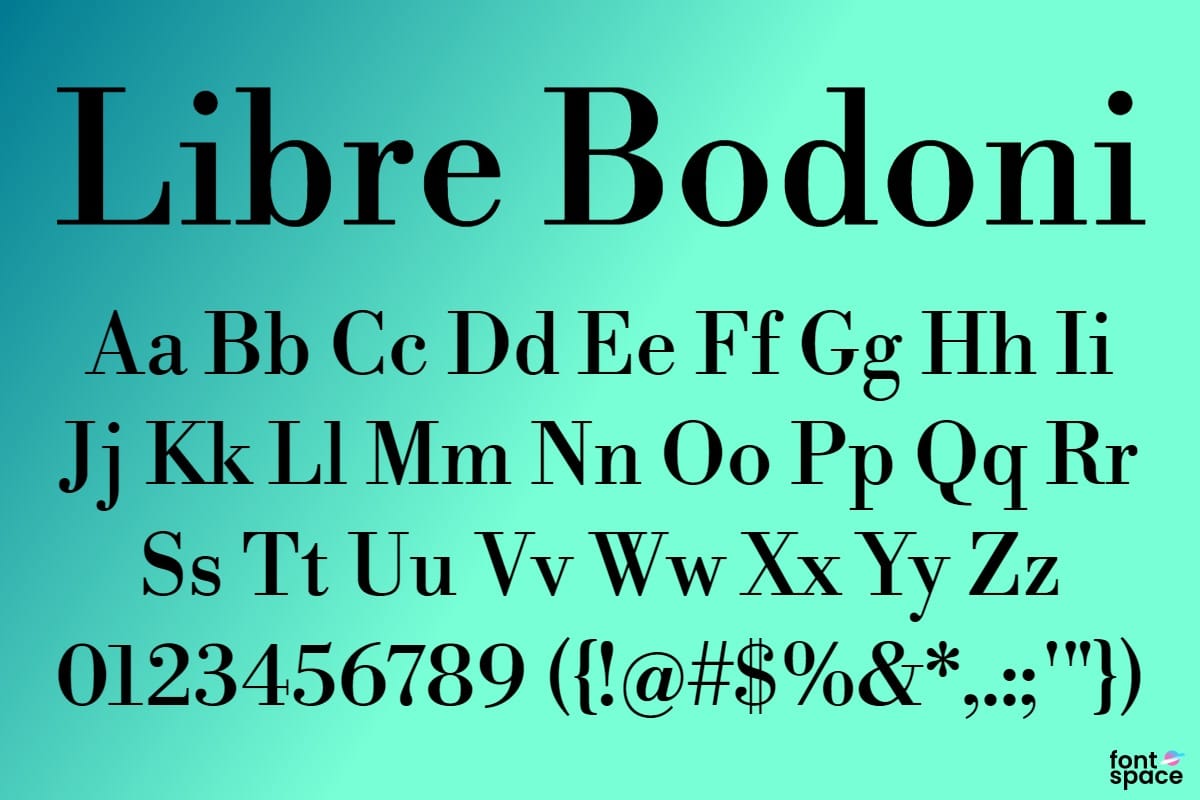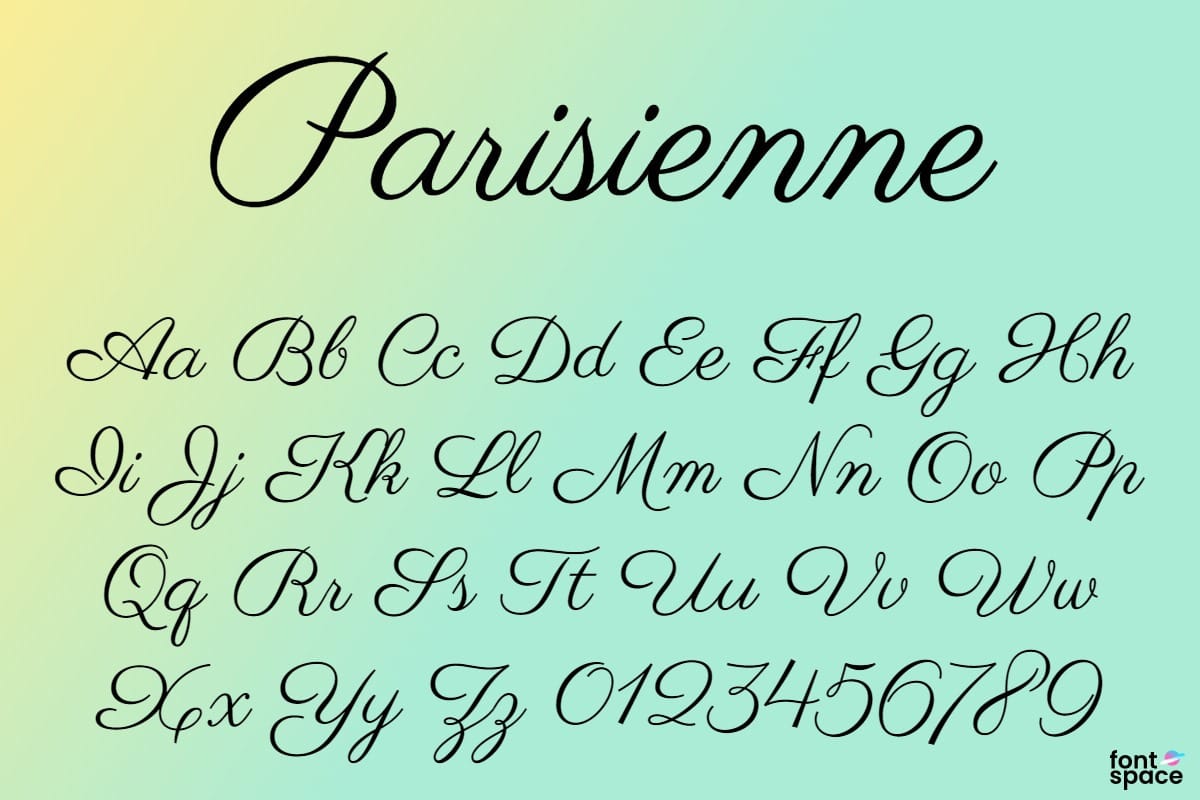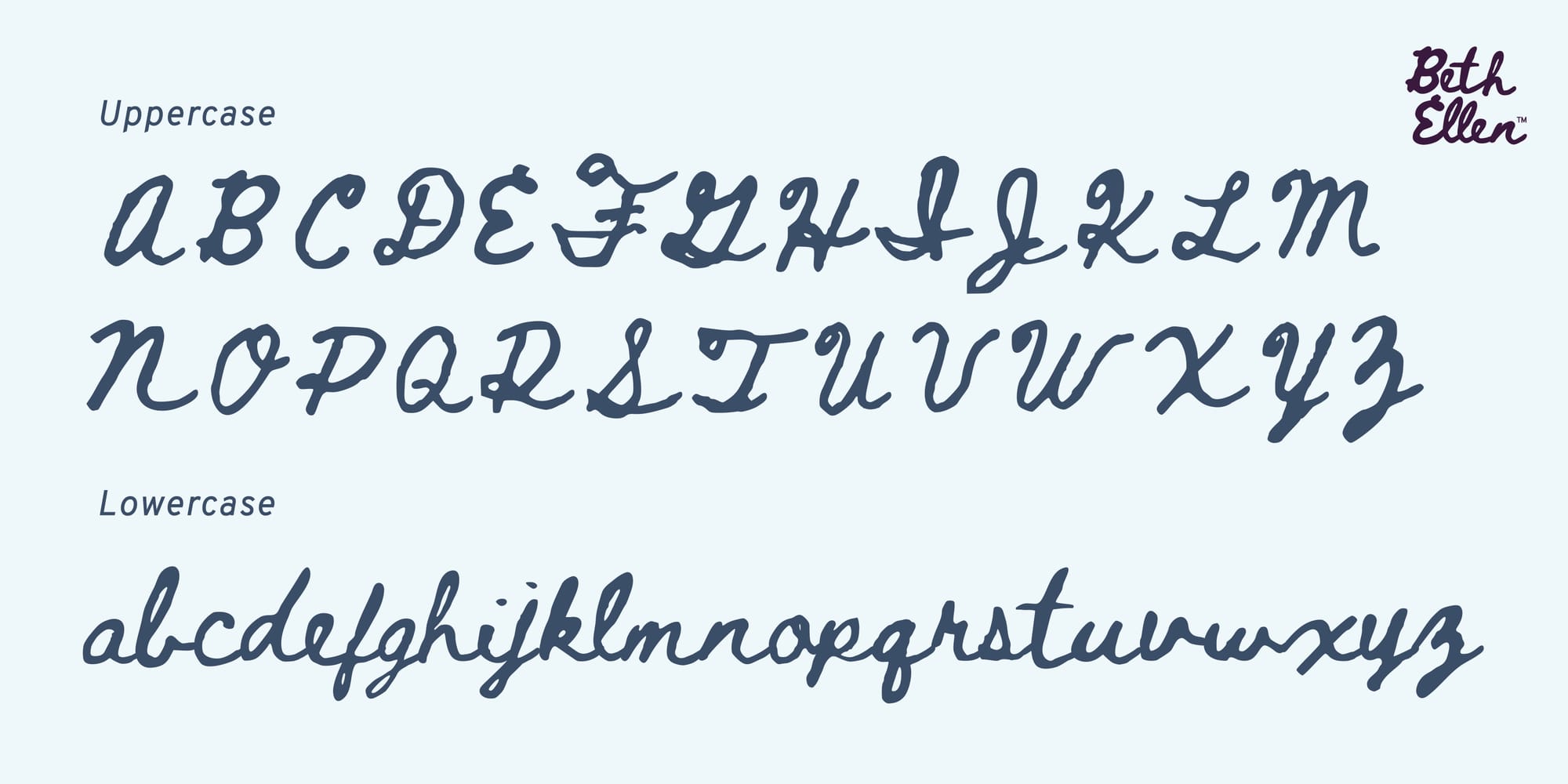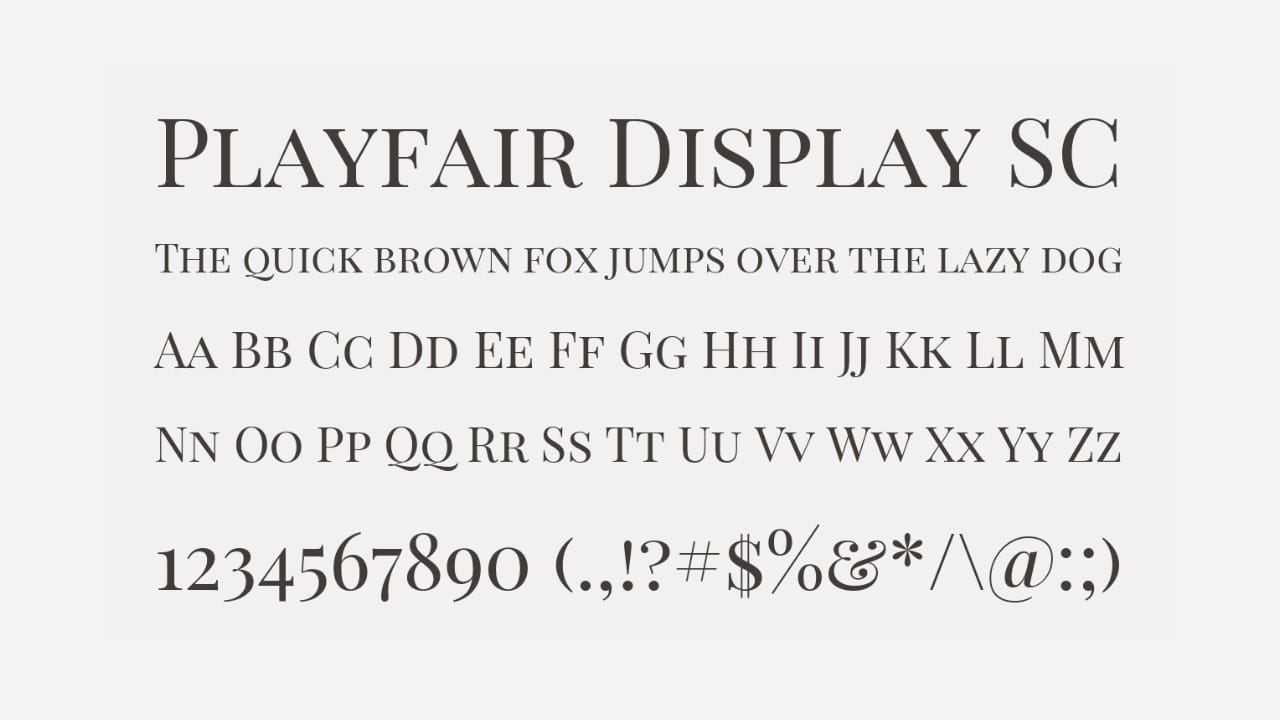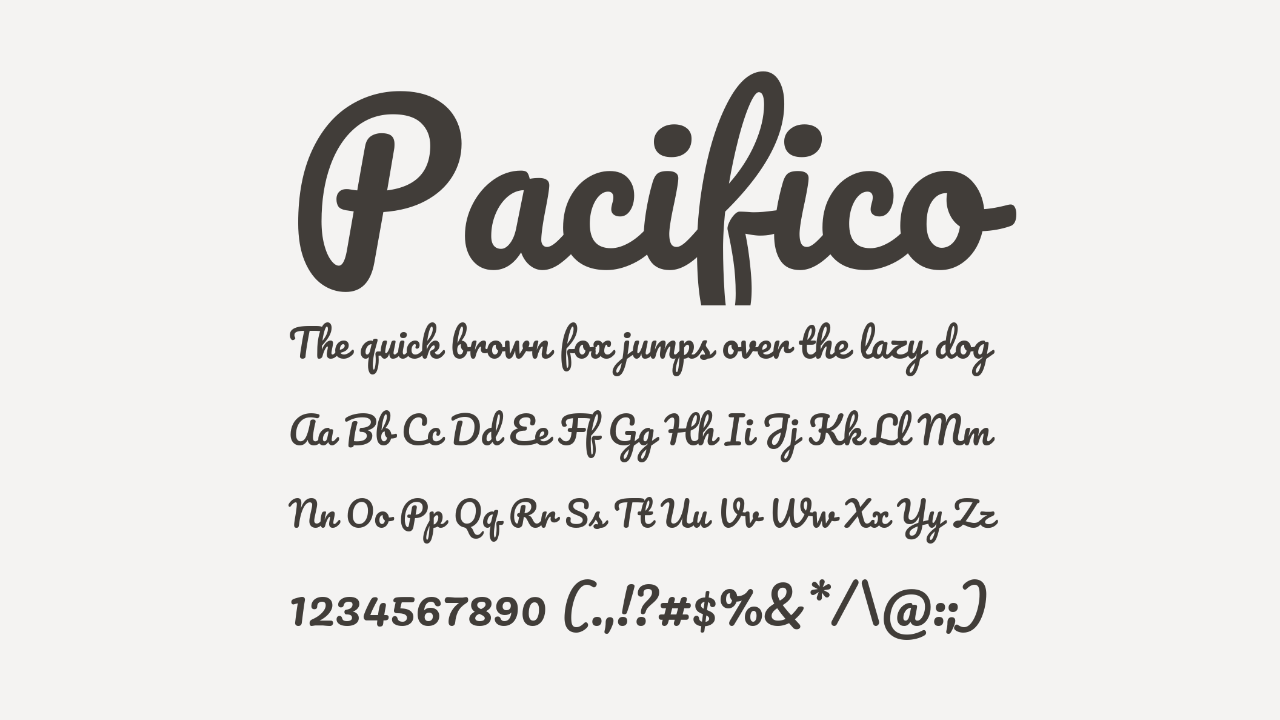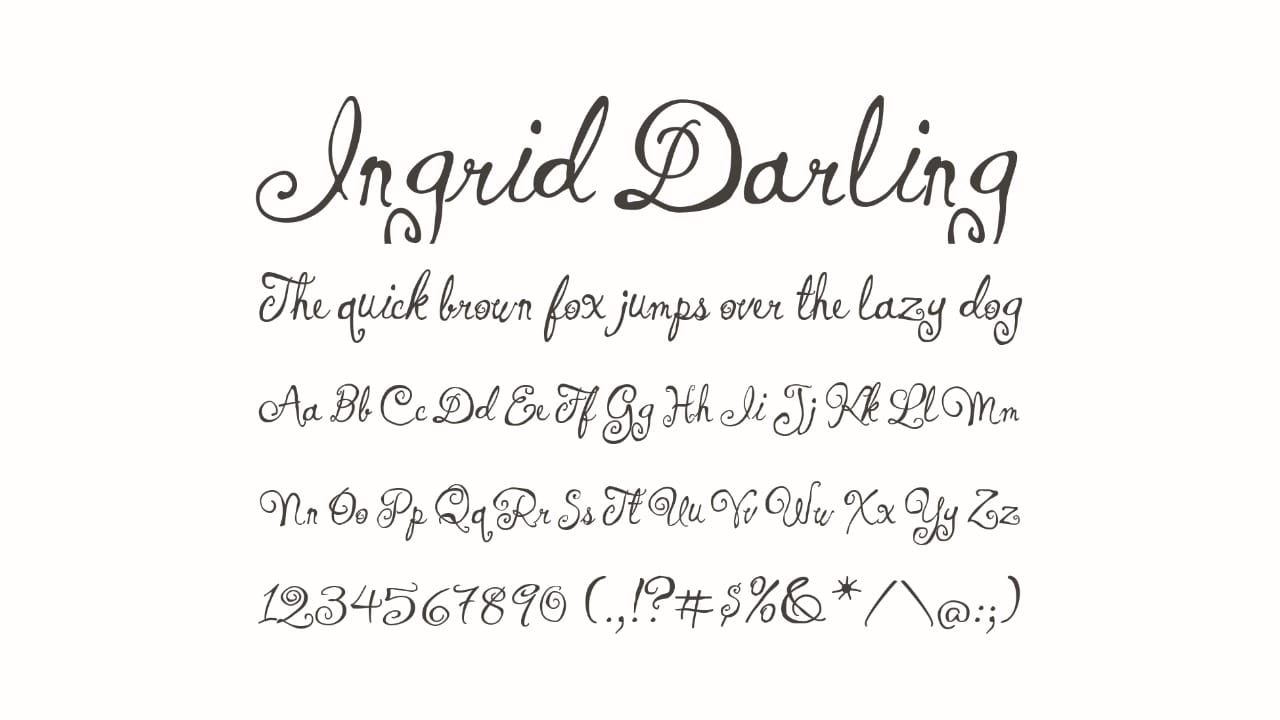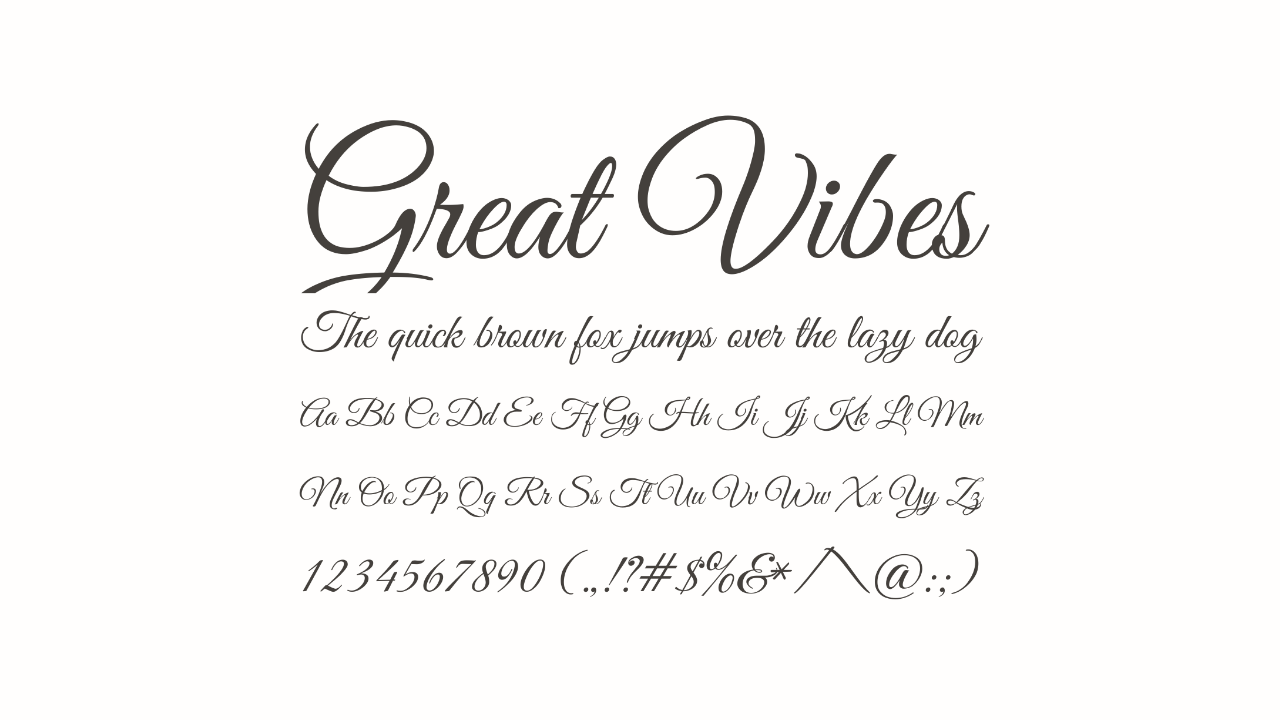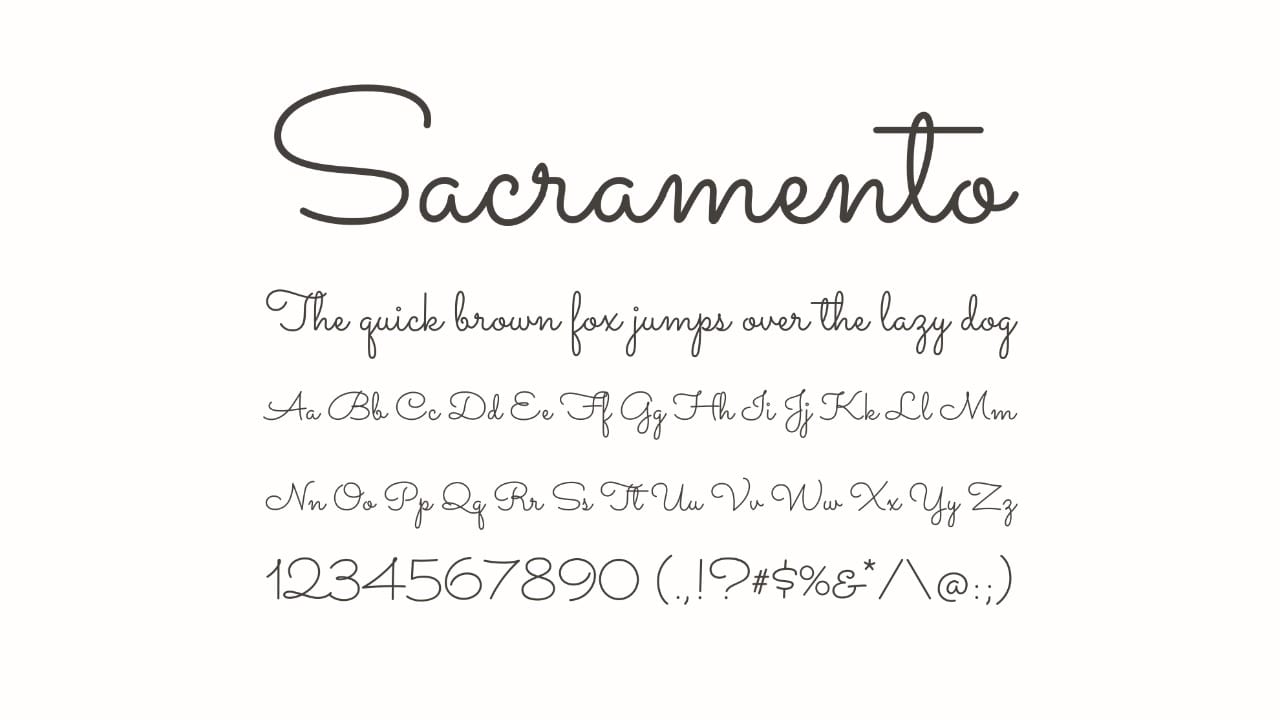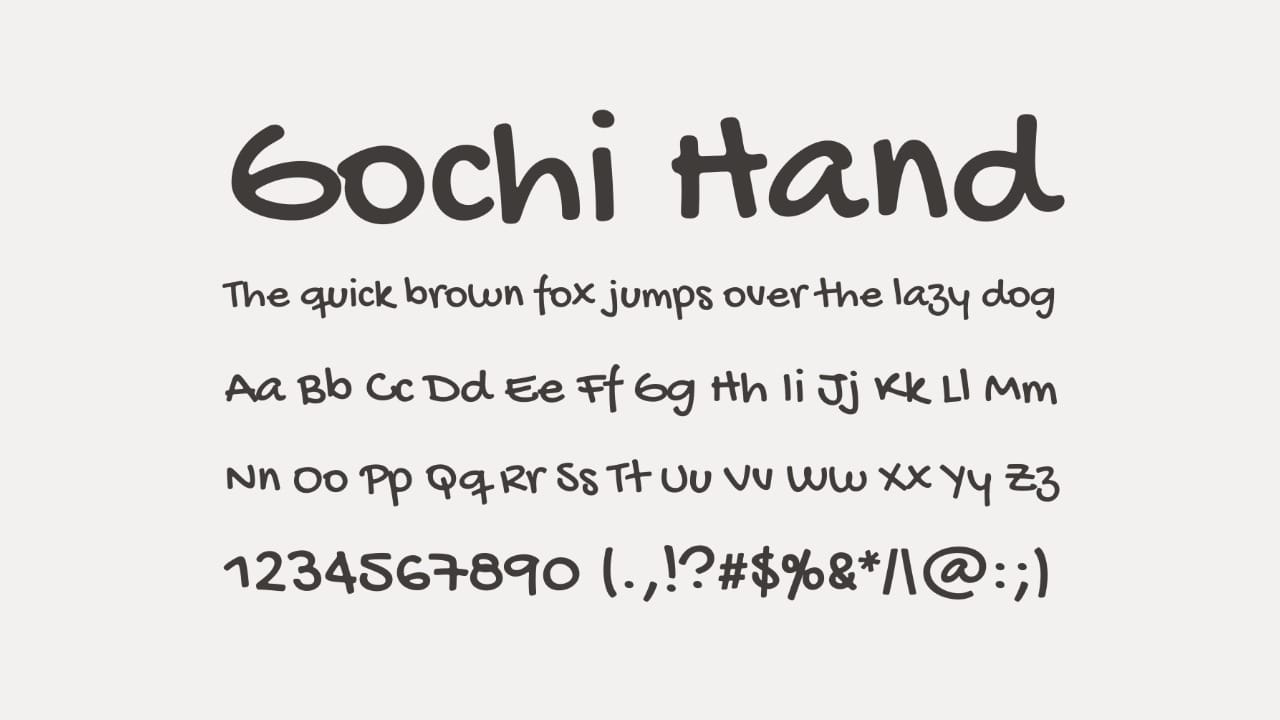
Best Fonts for Valentine's Day (Cards, Posters, and Videos)
Most Valentine’s Day messages are under ten words, which makes font choice as important as layout or imagery.
Best Fonts for Valentine's Day (Cards, Posters, and Videos)
Valentine’s Day is all about love. Whether you’re designing a heartfelt card, a romantic Instagram post, a party invitation, or a seasonal marketing graphic, the font you choose plays a big role in how your message is received.
Today, choosing a Valentine’s Day font involves two parallel workflows. Many creators begin by browsing font libraries for inspiration, while others prioritize generating a font to adapt across cards, posters, and video formats.
In this guide, we break down the best Valentine’s Day fonts by use case—starting with static designs like cards and posters, then moving into animated and video content. Each section highlights not only which fonts work best, but how to generate and apply them efficiently for that format, so your designs look intentional, polished, and on-theme.
Best Valentine's Day Fonts for Cards and Posters
Printed and static designs, like Valentine’s Day cards, posters, and memes rely heavily on typography to carry emotion. Because there’s no motion or sound, the font has to do more of the expressive work.
For cards and posters, the best fonts tend to fall into three categories:
• Script and cursive fonts
• Handwritten styles
• Serif fonts
In this section, we’ll cover which fonts perform best for static Valentine’s designs, and how to generate clean, readable results.
Best Script & Cursive Fonts
Cursive and script fonts are the most classic choice for Valentine’s Day designs. Their letterforms evoke romance, intimacy, and elegance, making them especially effective for cards, posters, and headline text.
These fonts work best when the text is short and intentional. Because script lettering often includes dramatic flourishes, it’s used for headlines or featured phrases rather than long blocks of copy. For Valentine’s Day projects, cursive fonts shine when paired with clean layouts and simple supporting typography.
Great Vibes
Great Vibes is a classic calligraphic script font known for its flowing curves and elegant letterforms. With its high contrast strokes and formal style, Great Vibes is ideal for traditional Valentine’s Day cards and formal designs. It’s best reserved for headlines or short phrases due to its ornate details.
Best for: Romantic Valentine’s cards, elegant posters, formal designs
Design note: Increase letter spacing slightly for better readability
Great Vibes script font specimen showing elegant cursive lettering for Valentine’s Day cards and posters
A classic script font like Great Vibes offers is elegant and perfect for traditional designs.
Ingrid Darling
Ingrid Darling is a playful handwritten script font. Its imperfect strokes and rounded letterforms give it a personal tone, making it ideal for lighthearted Valentine’s Day projects. Compared to more formal scripts, Ingrid Darling feels youthful and fun, which works well for classroom cards and social media graphics.
Best for: Cute Valentine’s cards, classroom projects, social graphics
Design note: Use generous spacing to keep designs from feeling crowded
Ingrid Darling handwritten script font specimen used for playful Valentine’s Day designs
Ingrid Darling adds a playful, handwritten feel, great for Valentine’s cards are personal.
Parisienne
Parisienne is a classic script font that balances elegance with readability. It is a versatile choice for Valentine’s Day designs that want to feel romantic without being overly decorative. Parisienne works well across cards, posters, and digital graphics, offering a polished look that still feels warm and personal. It’s especially effective in minimalist layouts where the typography is the focal point.
Best for: Valentine’s Day cards, posters, minimalist romantic designs
Design note: Works beautifully in high-contrast or monochrome designs
Parisienne balances romance and readability, making it a good font for cards and posters.
Sacramento
Sacramento is a monoline script font designed for clarity and simplicity. Unlike ornate fonts, Sacramento prioritizes legibility while maintaining a handwritten aesthetic. This makes it one of the most practical fonts for Valentine’s Day designs, especially when text needs to remain readable at smaller sizes.
Best for: Cards, posters, social media graphics
Design note: Ideal for pairing with decorative fonts as a supporting script
Sacramento monoline script font specimen for Valentine’s Day cards and social graphics
Sacramento’s clean, monoline strokes make it one of the most readable script fonts for Valentine’s Day projects.
Best Handwritten Valentines Fonts
Handwritten fonts are a favorite for Valentine’s Day because they feel personal. Unlike formal script or calligraphic fonts, handwritten Valentine’s fonts mimic real pen or marker strokes.
Most AI tools don’t generate full, installable fonts. Instead, they generate custom lettering or stylized text that functions like a font for a specific phrase. This is ideal for Valentine’s Day designs, where text is often short and decorative.
What font styles feel romantic without looking cheesy?
Serif fonts with soft curves and moderate contrast, such as Playfair Display or Cormorant Garamond, often feel romantic without being overly decorative. These fonts are a good choice when you want a Valentine’s design to feel elegant rather than playful.